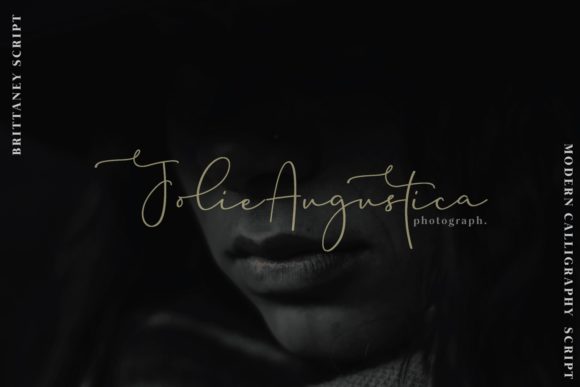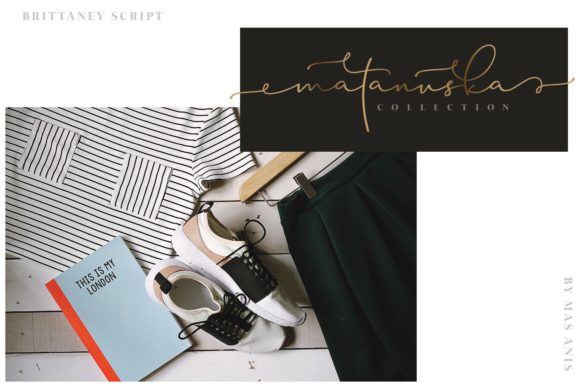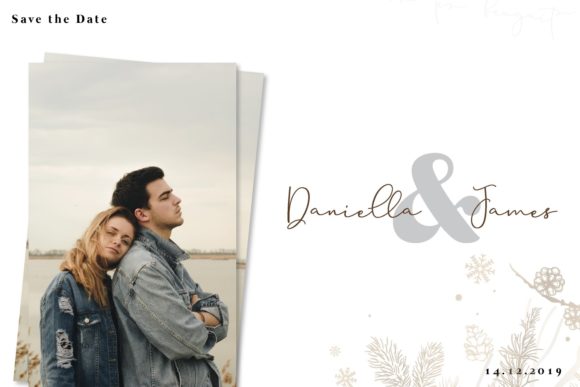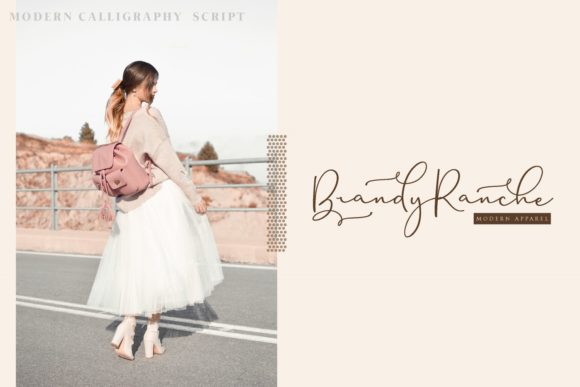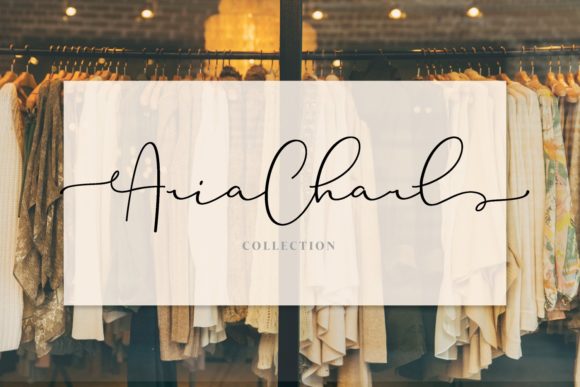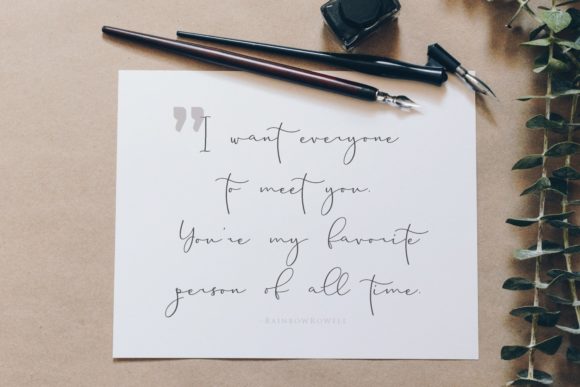
The Brittaney Font: Elevate Your Designs with Modern Elegance
In the world of typography, a font can make all the difference in the aesthetic and effectiveness of a design. For designers and crafters looking to add a touch of modern elegance to their projects, the Brittaney font is an excellent choice. This stunning font is designed to bring a level of sophistication and style that can elevate any design.
What is the Brittaney Font?
The Brittaney font is a modern and elegant typeface that is perfect for a wide range of design applications. Whether you’re working on a branding project, creating a beautiful wedding invitation, or designing a stylish poster, this font is sure to impress. Its clean lines, beautiful curves, and stylish alternates make it a versatile choice that can be used in various contexts.
Key Features of the Brittaney Font
One of the standout features of the Brittaney font is its extensive range of stylistic alternates. These alternates allow designers to add a unique touch to their designs, making each project truly one-of-a-kind. With the Brittaney font, you can experiment with different styles and variations to find the perfect look for your project.
Some of the key features of the Brittaney font include:
- Modern and elegant design
- Extensive range of stylistic alternates
- Clean lines and beautiful curves
- Versatile and adaptable to various design applications
- Perfect for branding, wedding invitations, posters, and more
Why Choose the Brittaney Font?
With so many fonts available, why choose the Brittaney font for your next design project? Here are just a few reasons why this font stands out:
- Uniqueness: The Brittaney font offers a unique and distinctive look that will set your designs apart from the rest.
- Versatility: This font is adaptable to various design applications, making it a great addition to any designer’s toolkit.
- Elegance: The modern and elegant design of the Brittaney font makes it perfect for projects that require a touch of sophistication.
Tips for Using the Brittaney Font
To get the most out of the Brittaney font, here are a few tips to keep in mind:
- Experiment with Stylistic Alternates: Don’t be afraid to try out different stylistic alternates to find the perfect look for your project.
- Pair with Other Fonts: The Brittaney font pairs well with other fonts, so don’t be afraid to experiment with different combinations.
- Use for Headings and Titles: The Brittaney font is perfect for headings and titles, where its elegant design can really shine.
In conclusion, the Brittaney font is a modern and elegant typeface that is perfect for designers and crafters looking to add a touch of sophistication to their projects. With its extensive range of stylistic alternates, clean lines, and beautiful curves, this font is sure to impress. Whether you’re working on a branding project, creating a beautiful wedding invitation, or designing a stylish poster, the Brittaney font is an excellent choice.